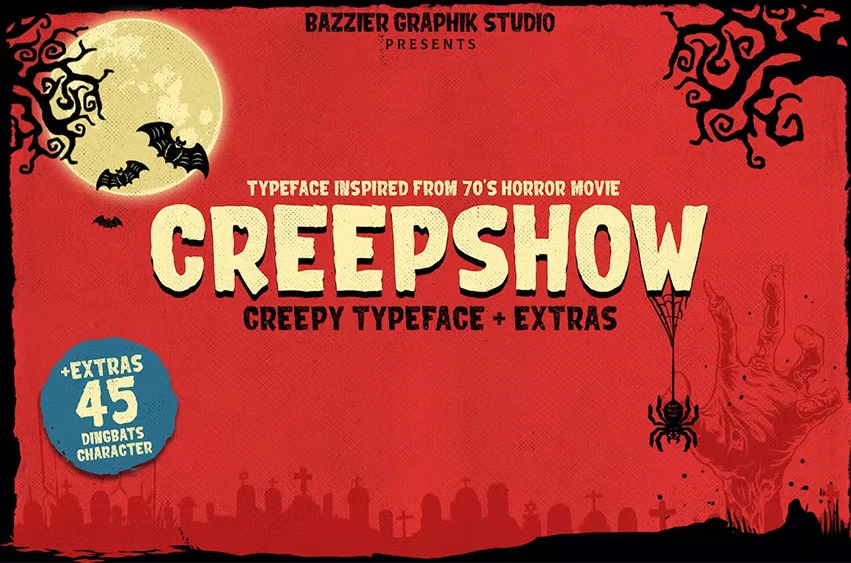
Creepshow Font is suitable for your horror, Halloween, and creepy project. This decorative font is available in clean and rough versions plus the dingbat’s version bonus.